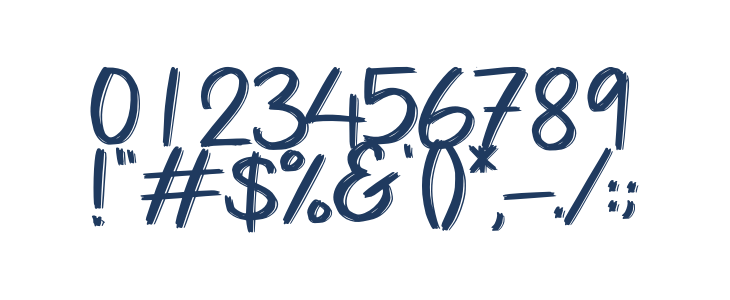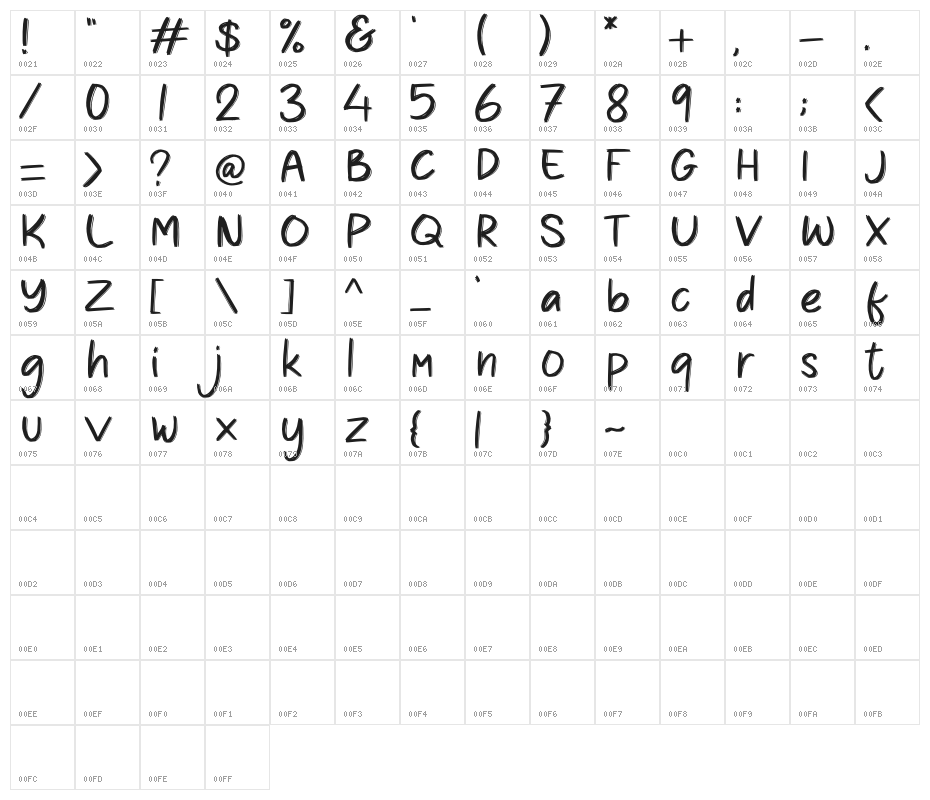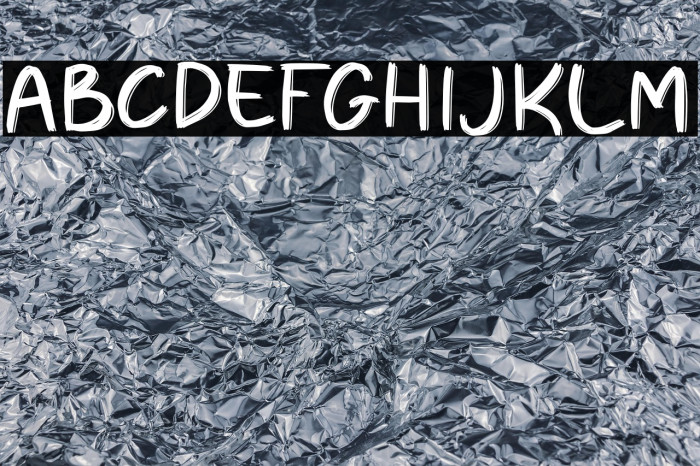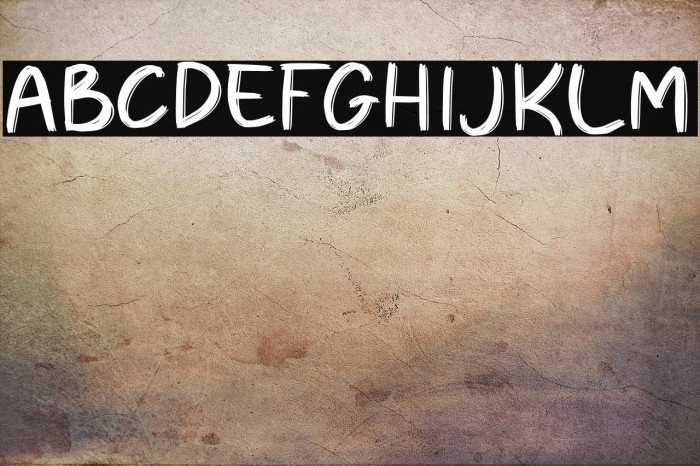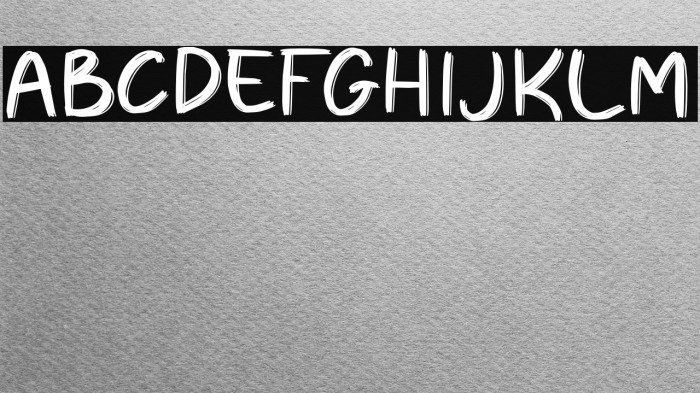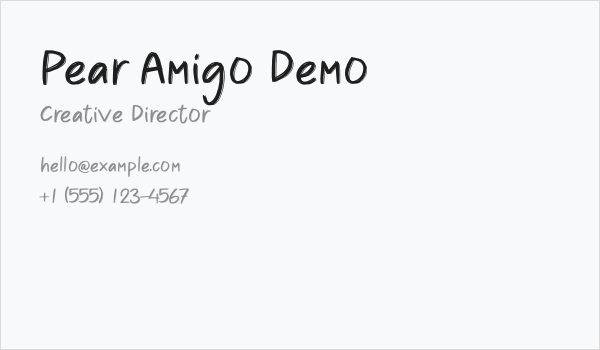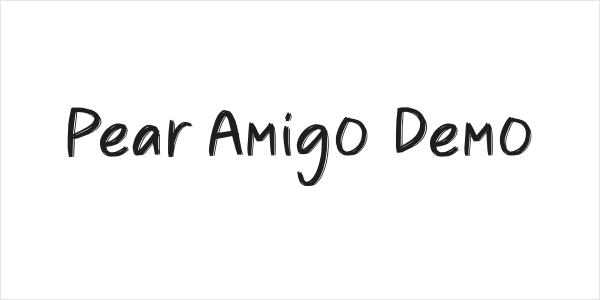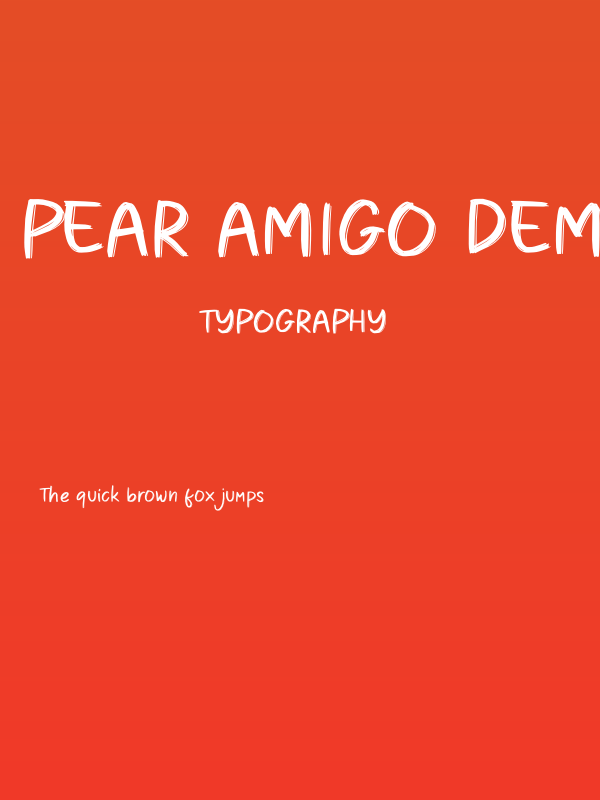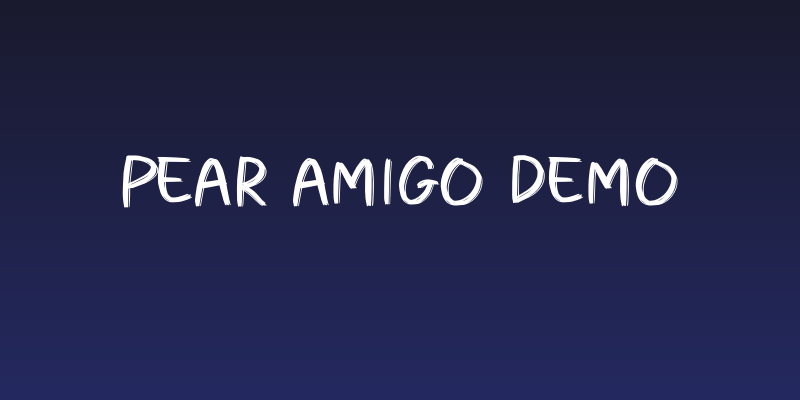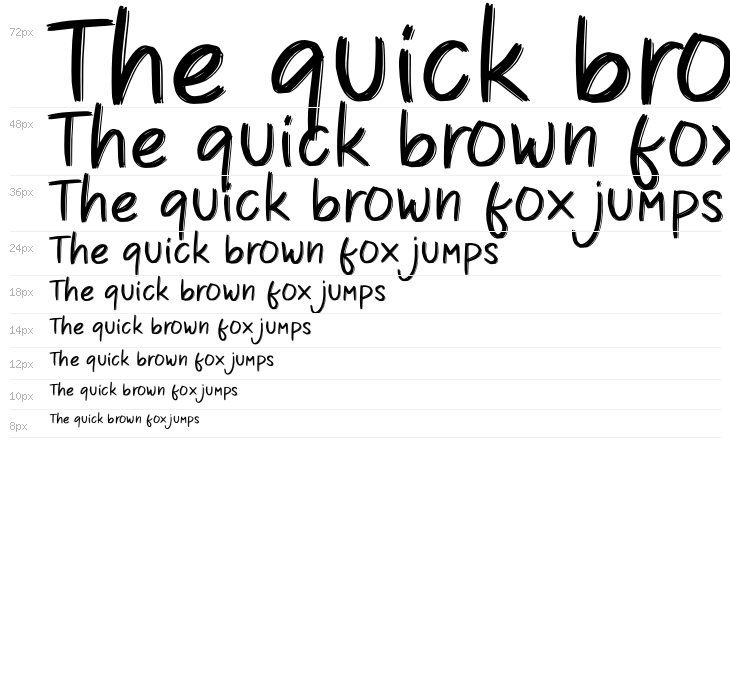
Pear Amigo Demo Font
Pear Amigo Demo Description
This font features a playful and energetic handwritten style, characterized by its bold and dynamic strokes. The letters exhibit a casual, yet confident appearance with slightly irregular lines that add a touch of spontaneity. The uppercase and lowercase letters maintain a consistent flow, while the numerals and special characters complement the overall aesthetic. The font's informal nature makes it suitable for projects that require a personal and approachable touch, such as invitations, greeting cards, and creative branding materials.
Use CaseLogos, Headlines, Creative projects
Proposed ProjectsIdeal for invitations, greeting cards, creative branding, and playful designs.